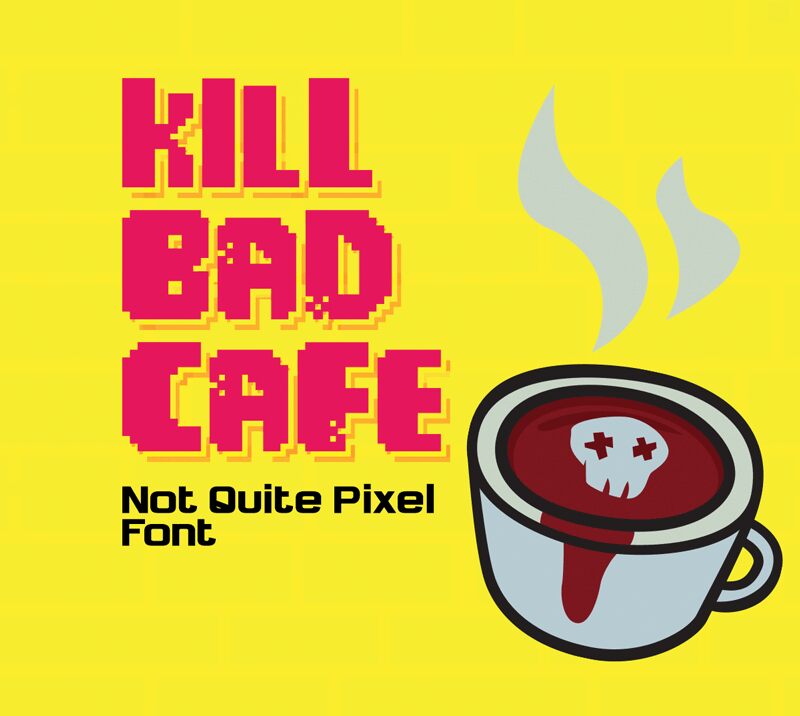
A retro pixel font with a modern touch? Yes, Kill Bad Cafe is here to help you mix retro designs with today’s aesthetics. From video game logos and online game UX design to mobile app branding and retro arcade flyer design, this bold display font features uppercase and lowercase letters, numbers, and punctuation marks with a wide variety of glyphs to match. And if you want to spice things up, check out the commercial version.